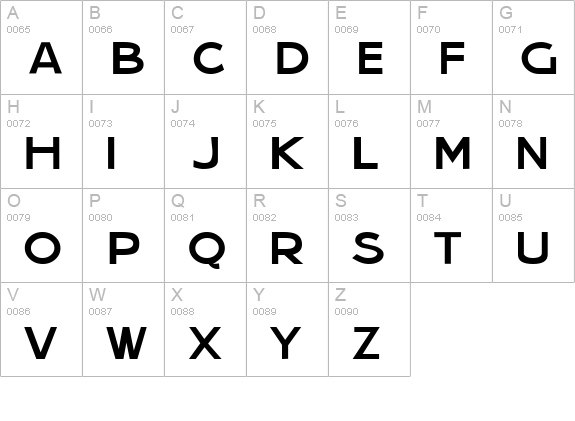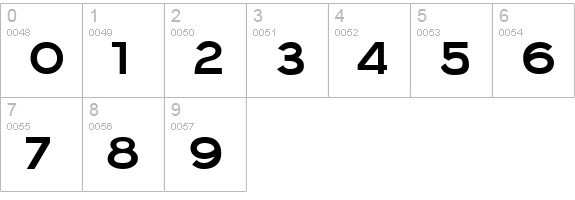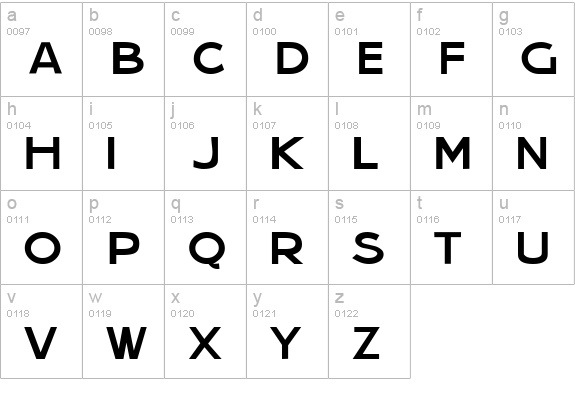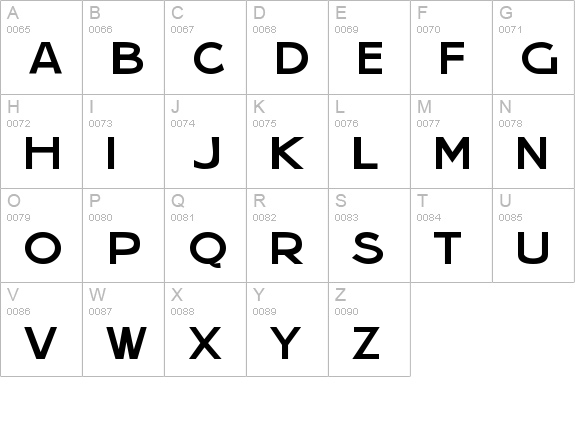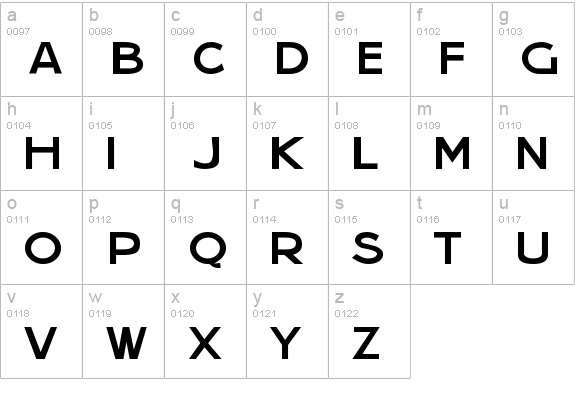
Jera Sans JL Font Details
Jera Sans JL font is a modern and stylish typeface that exudes simplicity and elegance. Its clean lines and balanced proportions make it versatile for a wide range of design projects, from branding to editorial layouts. The font's sleek and contemporary look is perfect for creating a sophisticated and professional impression. What sets Jera Sans JL font apart is that it is available for free download at FontsMarket.com. This means that you can easily access this high-quality typeface without any cost, making it a valuable addition to your font library. Whether you are a designer, marketer, or student, Jera Sans JL font offers a great opportunity to enhance your projects with a premium font that won't break the bank. Don't miss out on the opportunity to elevate your designs with Jera Sans JL font. Download it for free today at FontsMarket.com and experience the impact of this versatile and stylish typeface for yourself.